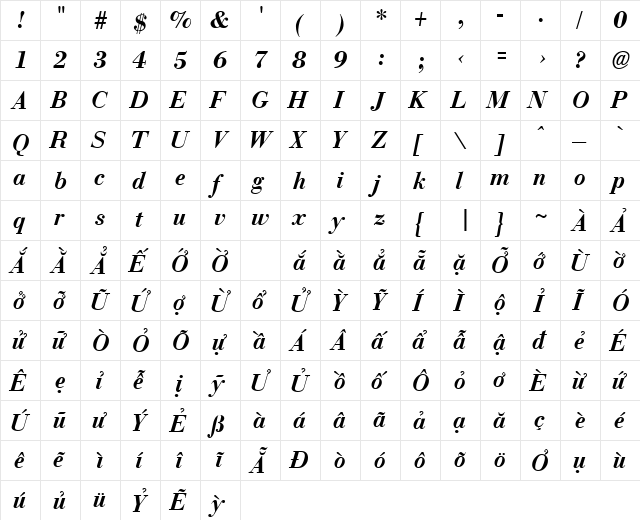
VPS Con Son Bold Italic
Design Context for VPS Con Son Typeface
VPS Con Son offers clean, dependable letterforms without strong stylistic allegiance, making it a practical choice for designers who need flexibility. The dynamic lean of this cut emphasises speed and emphasis in any layout. Its bold stroke weight gives it real presence on the page.
Pro Tip: Try VPS Con Son for annotation and caption copy alongside an upright companion — the contrast in angle creates a dynamic but ordered typographic system.